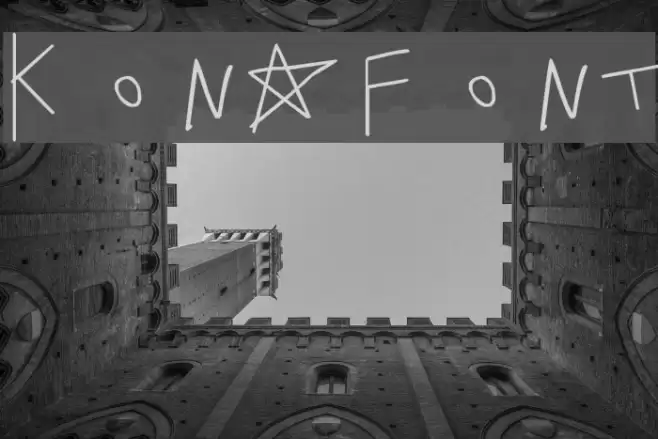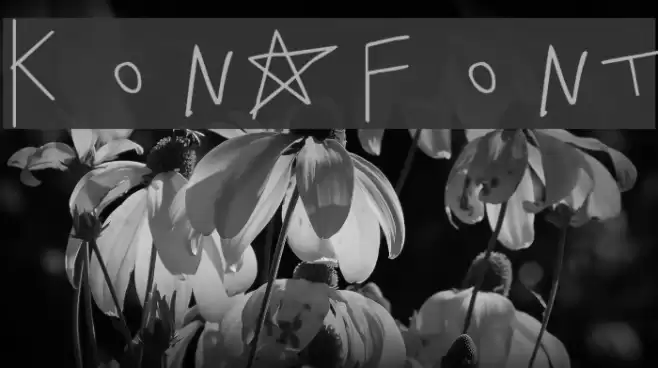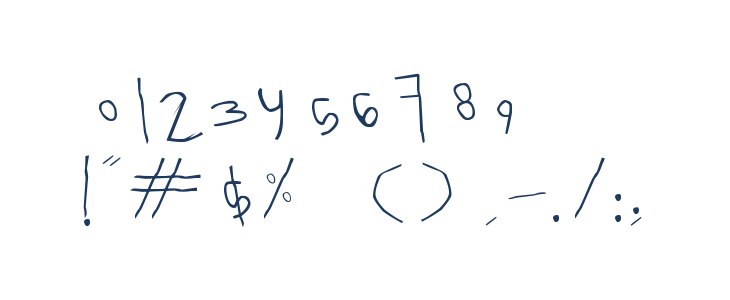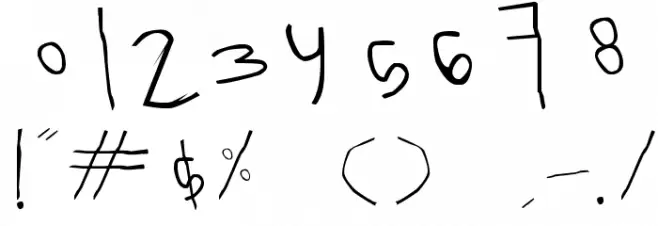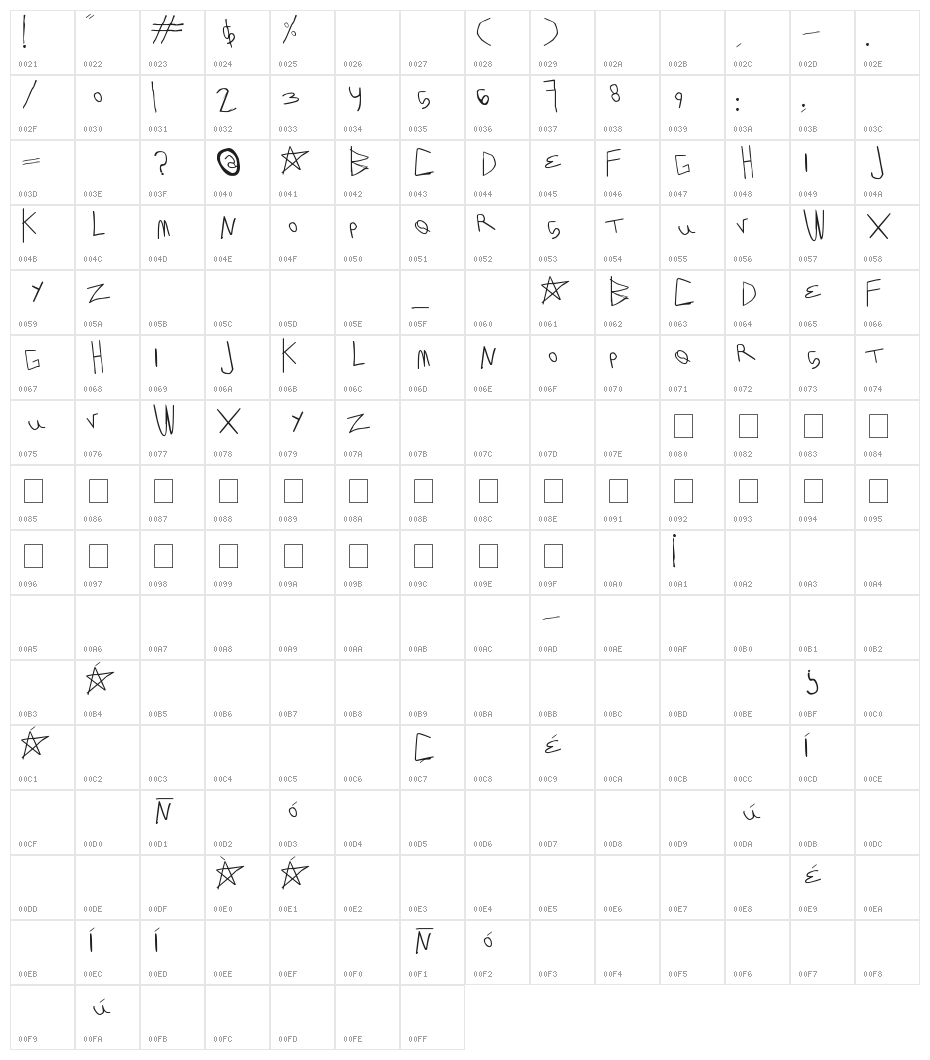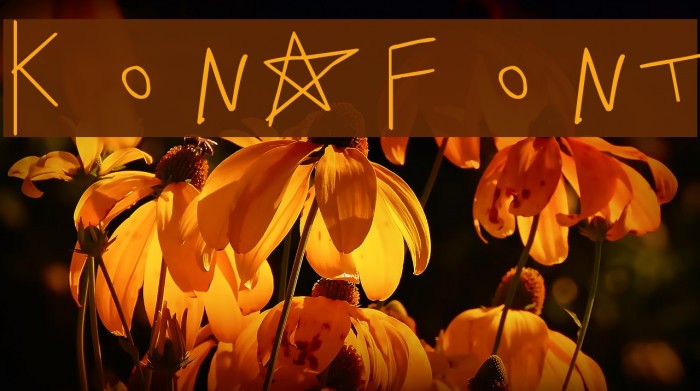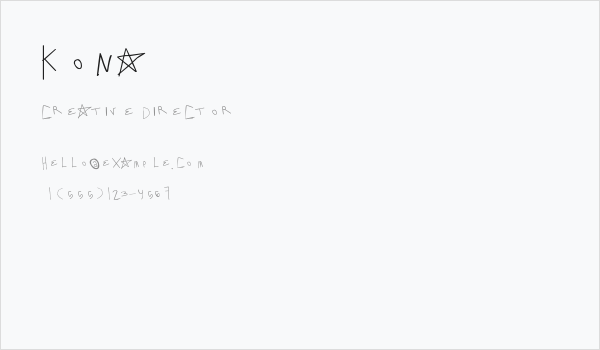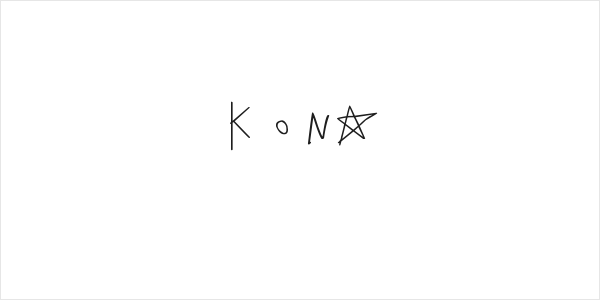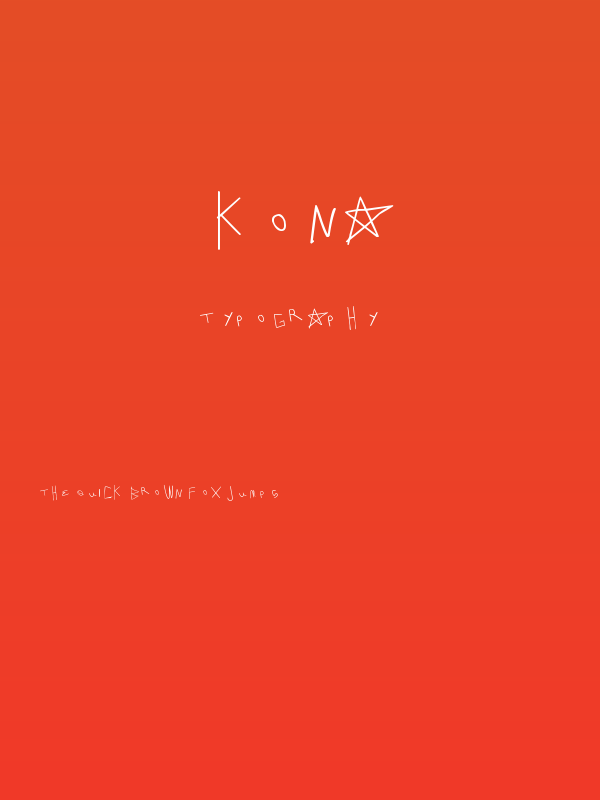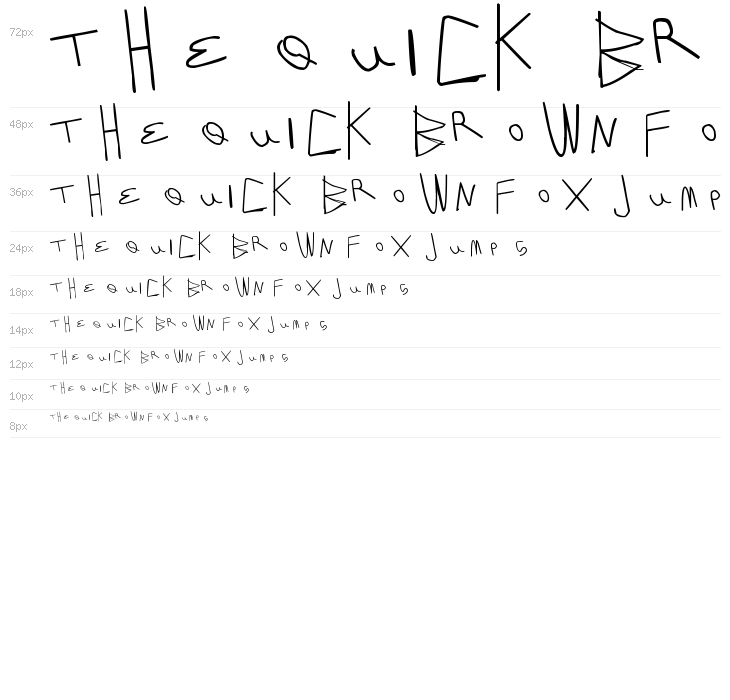
KONA Font
KONA Description
This font exhibits a playful and informal style, characterized by its hand-drawn appearance. The letters are uneven and slightly irregular, giving it a whimsical and casual feel. The uppercase and lowercase letters maintain a consistent style, with quirky angles and a sense of spontaneity. Numbers and special characters follow the same playful design, adding to the font's cohesive look. The overall impression is one of creativity and individuality, making it suitable for projects that require a personal touch.
A playful, hand-drawn font with a whimsical and informal style from Uncategorized fonts.
- Proposed Projects: Ideal for children's books, creative posters, casual invitations, and artistic branding.